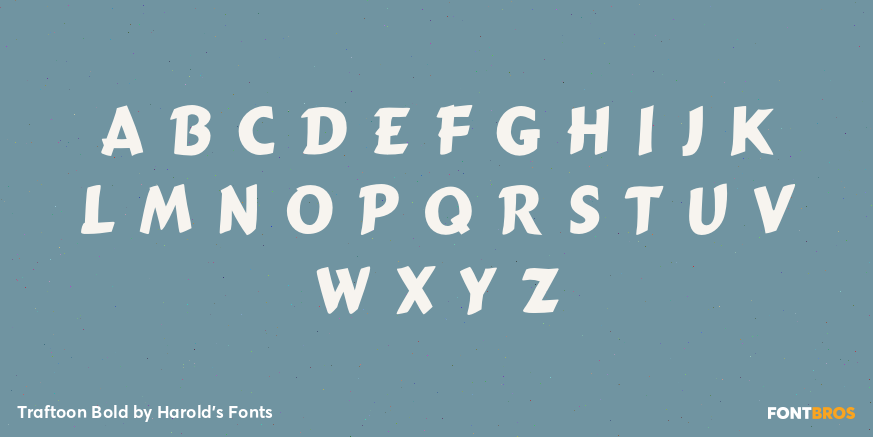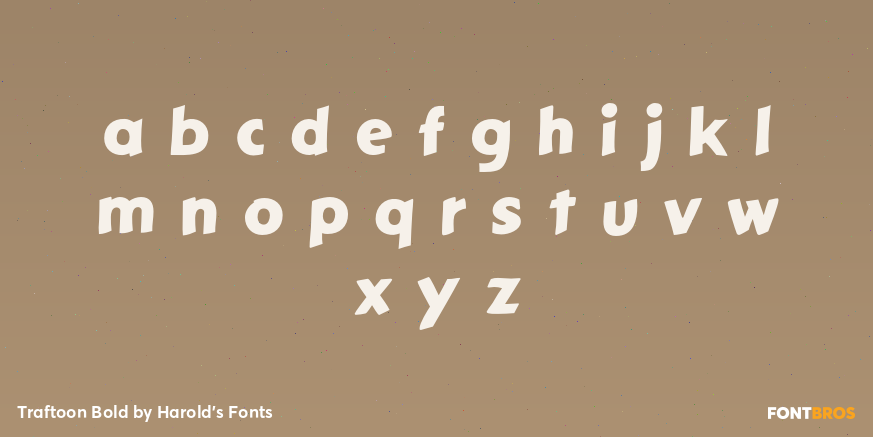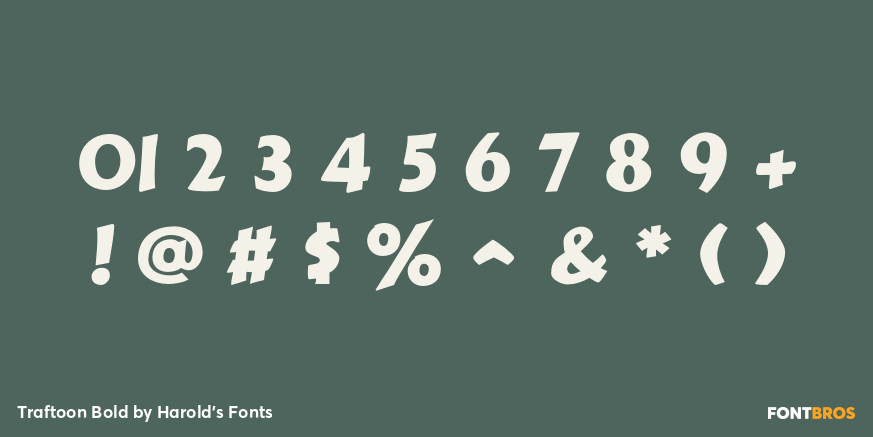
Traftoon Bold
TRAFTOON is a set of three fonts that look like neat, slightly sloped hand lettering done with a brush and ink. Casual but not child-like, with full upper and lowercase, Traftoon offers an attractive and flexible alternative to many similar fonts such as Balloon and Comic Sans.
Traftoon was inspired by Howard Trafton's Cartoon Light and Cartoon Bold of 1936. The Light has not been previously digitized and neither included lowercase originally. In creating these, I maintained the quirks of the originals that give the fonts a convincing hand-lettered appearance. The three weights of Traftoon give even more flexibility for headlines, captions or text.